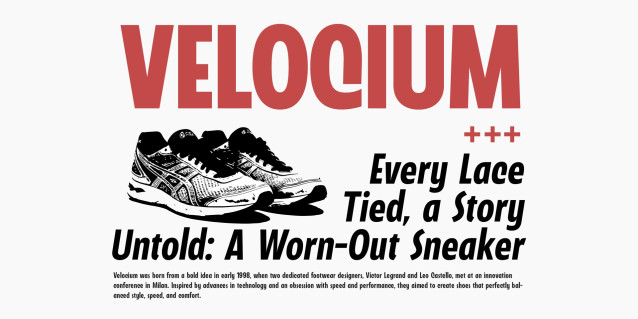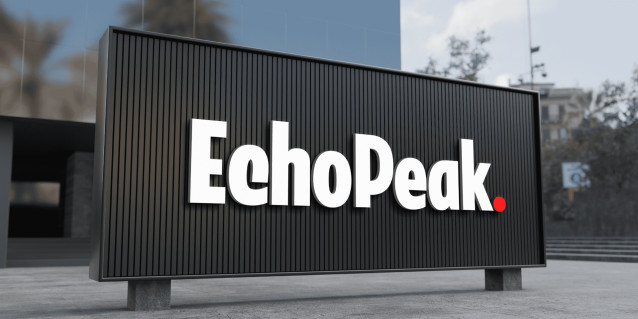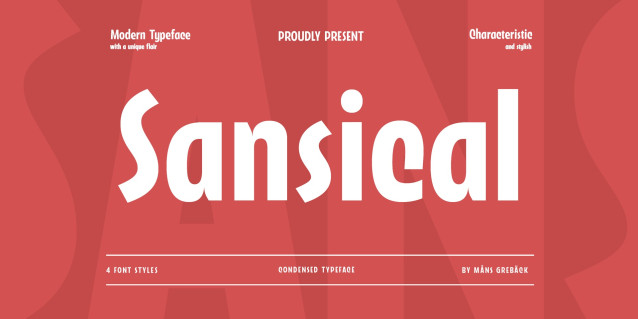
Sansical Font
Sansical Font is a modern sans-serif typeface that blends a distinctive style with clear, easy-to-read forms. It strikes a balance between cool, contemporary aesthetics and high legibility, making it a versatile option for both digital and print applications. The characteristic sharp edges and smooth curves give Sansical a unique personality, while its clean structure ensures it remains functional across a wide range of uses.
The sleek and refined letterforms of Sansical exude confidence, making it perfect for bold headlines, yet subtle enough to remain unobtrusive in longer texts. With its cool, modern appeal, this font captures attention without sacrificing readability.
The font is built with advanced OpenType functionality and guaranteed top-notch quality, containing stylistic and contextual alternates, ligatures and more automatic and manual features; all to give you full control and customizability.
It has extensive lingual support, covering all Latin-based languages, from North Europa to South Africa, from America to South-East Asia. It contains all characters and symbols you’ll ever need, including all punctuation and numbers.
Designed by Mans Greback, Sansical is crafted with precision and creativity, reflecting his dedication to modern typography and attention to functional design.